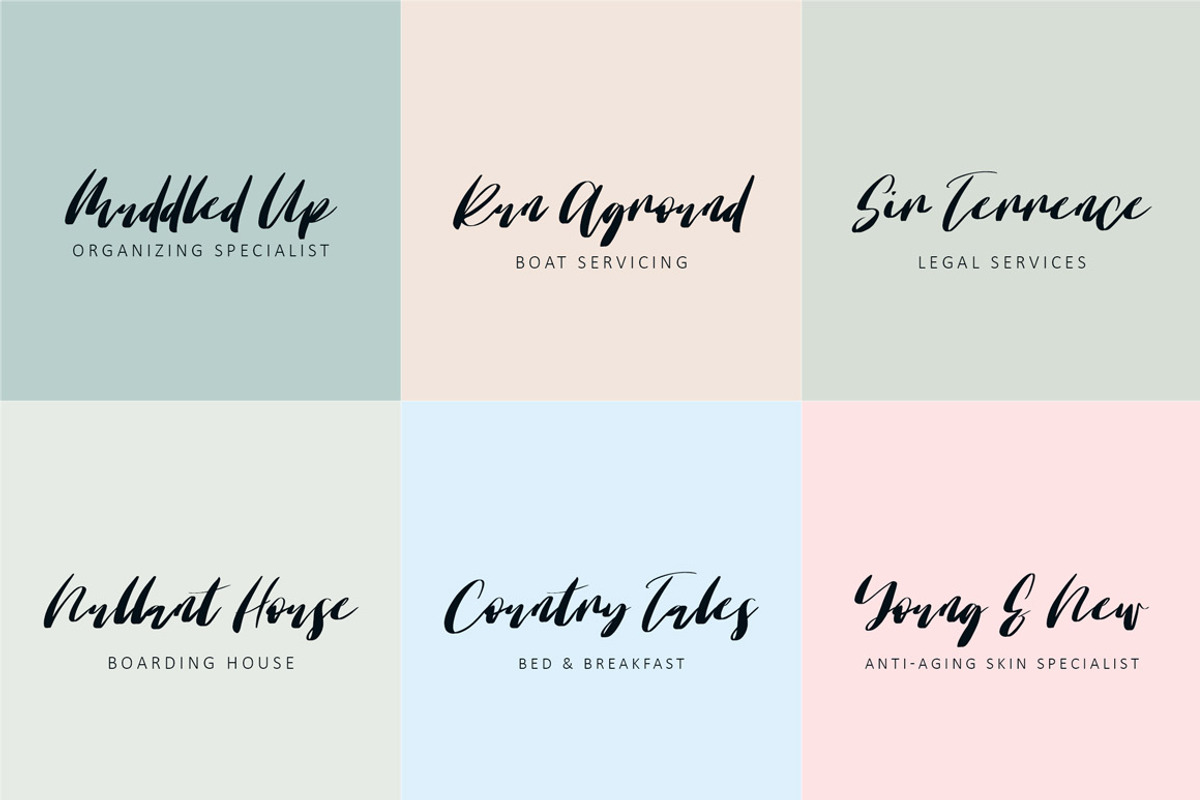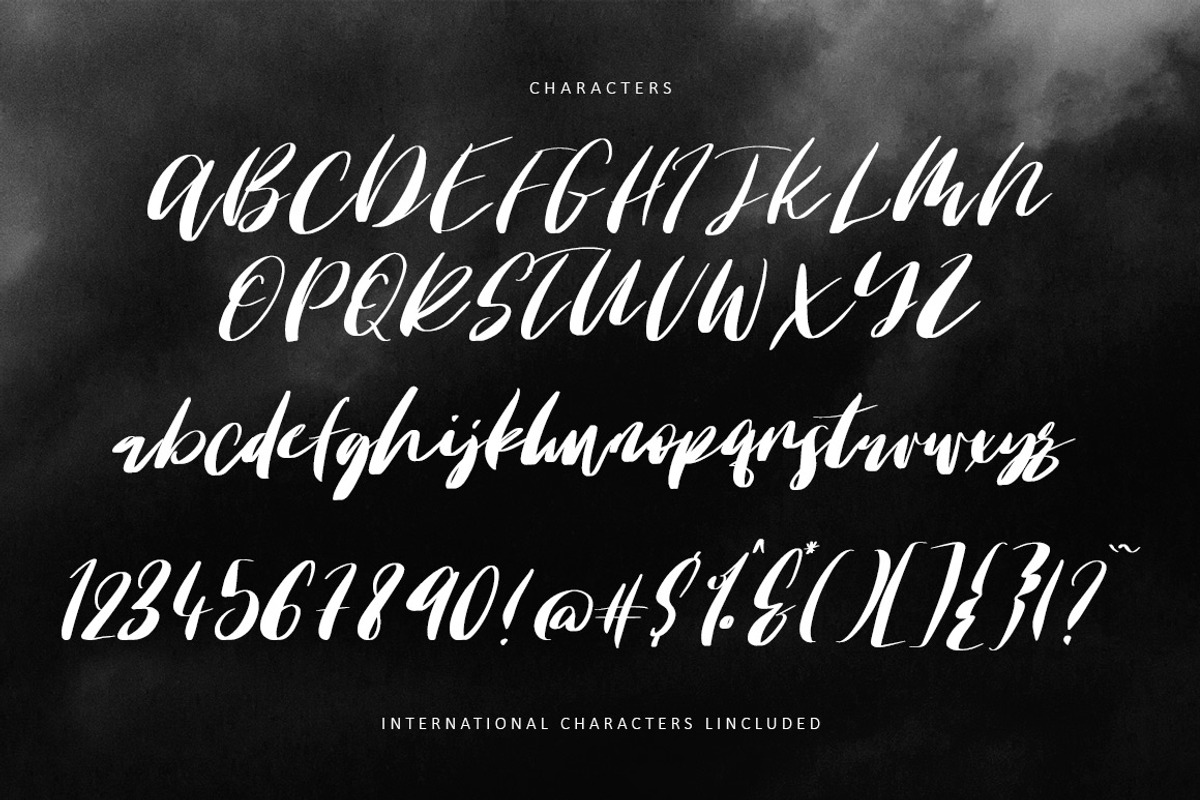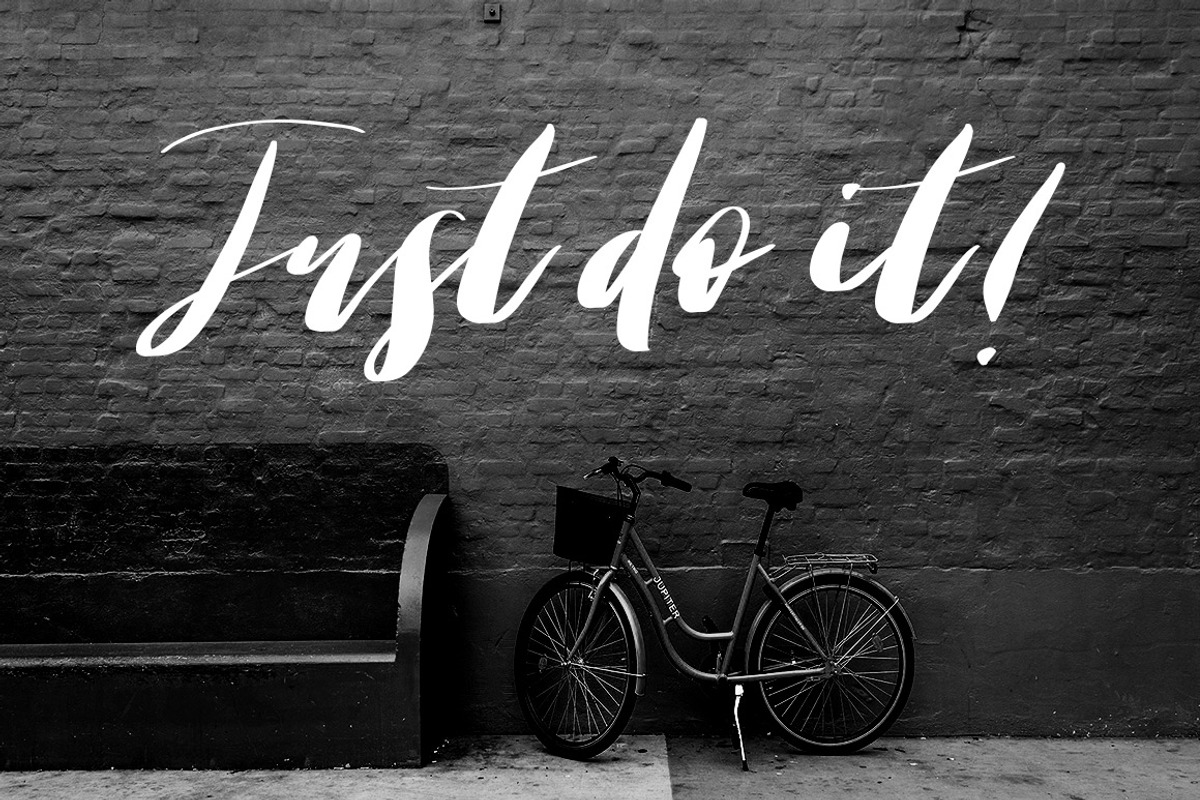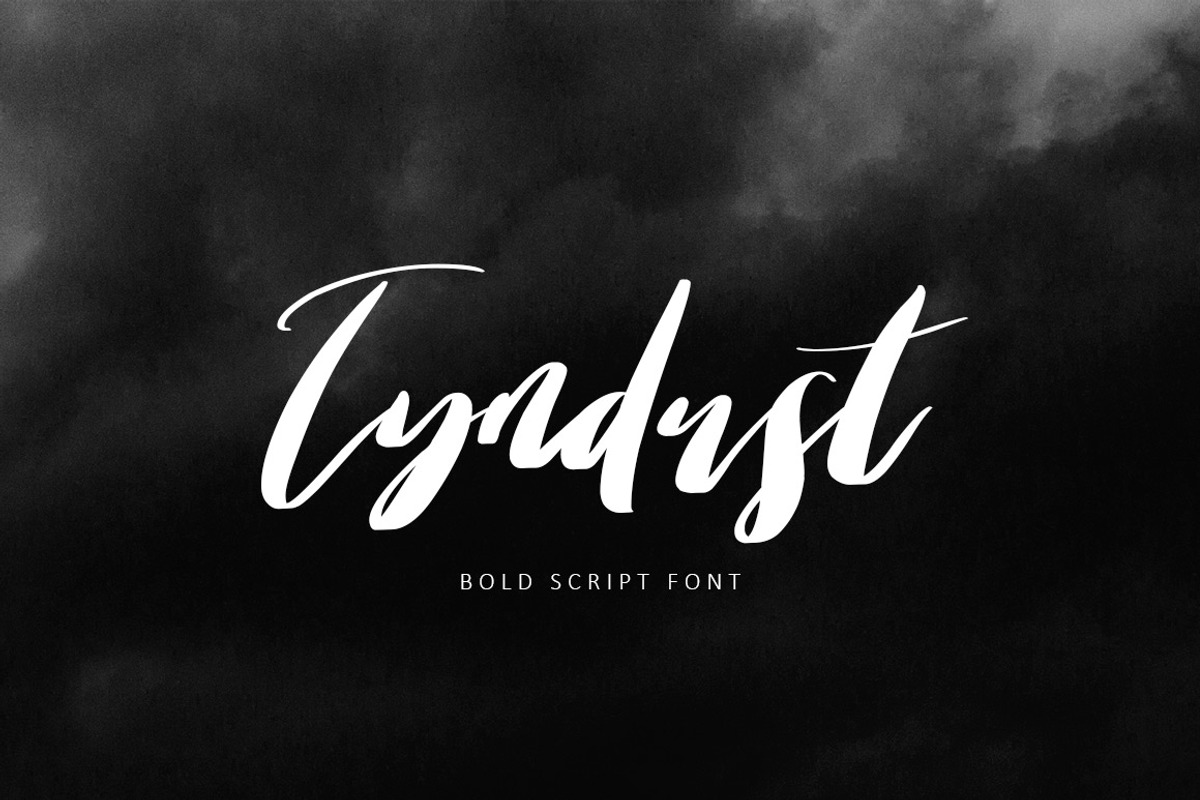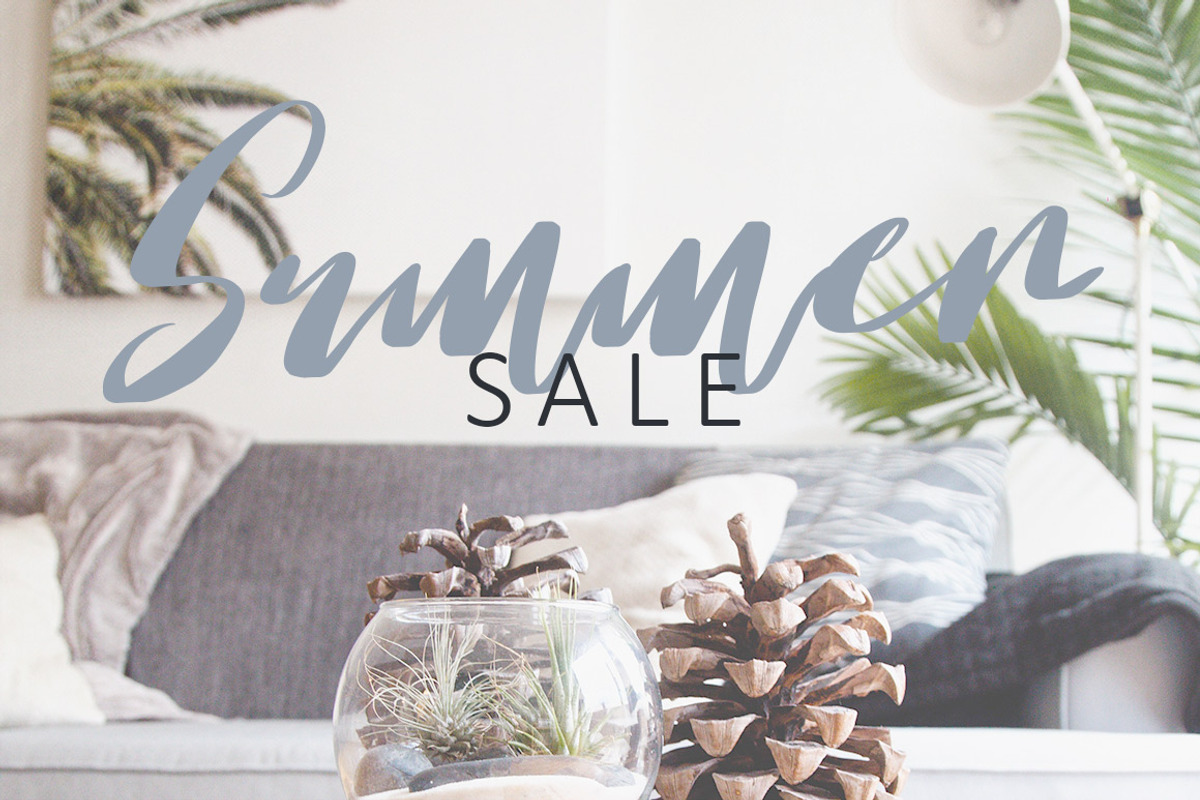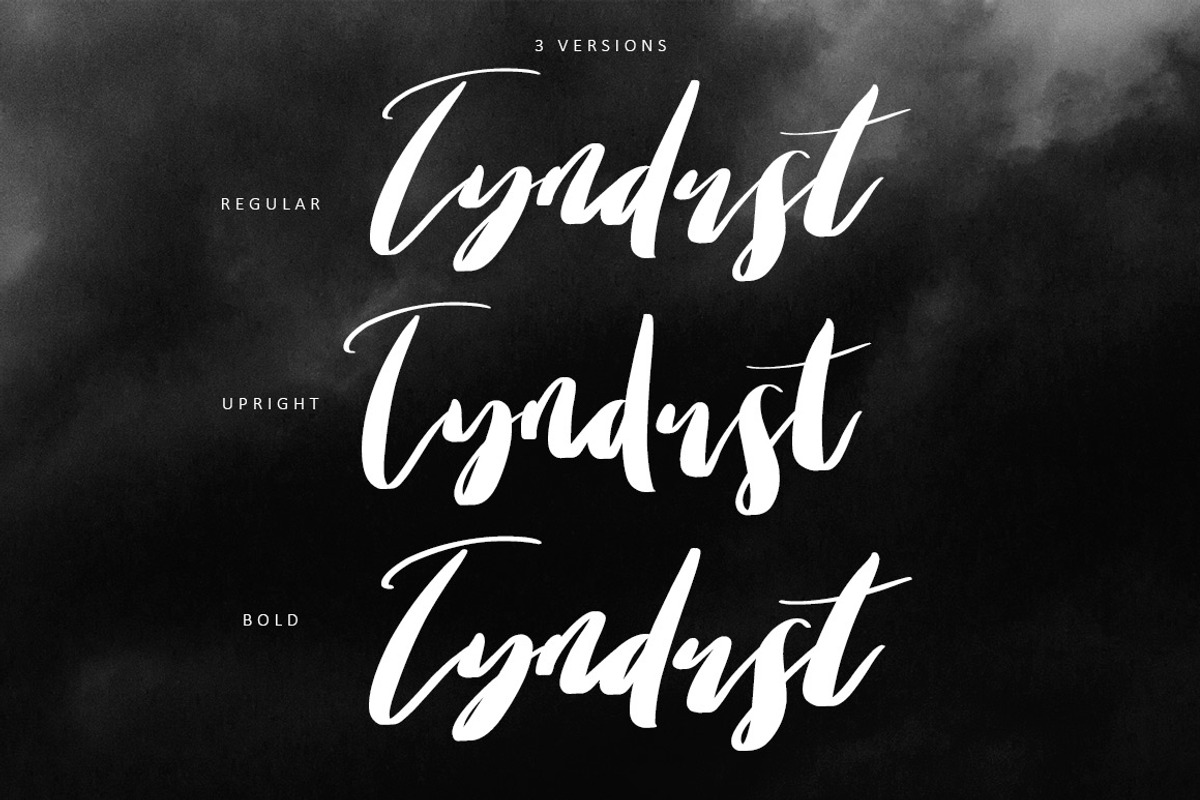
Tyndust Script Font
Introducing Tyndust script font.
A trendy hand painted script font. In regular, bold and italic.
- International characters included.
Why Tyndust Script Font is worth a look
Tyndust Script Font by Creativeqube Design fits naturally into Branding, posters, packaging, typography.